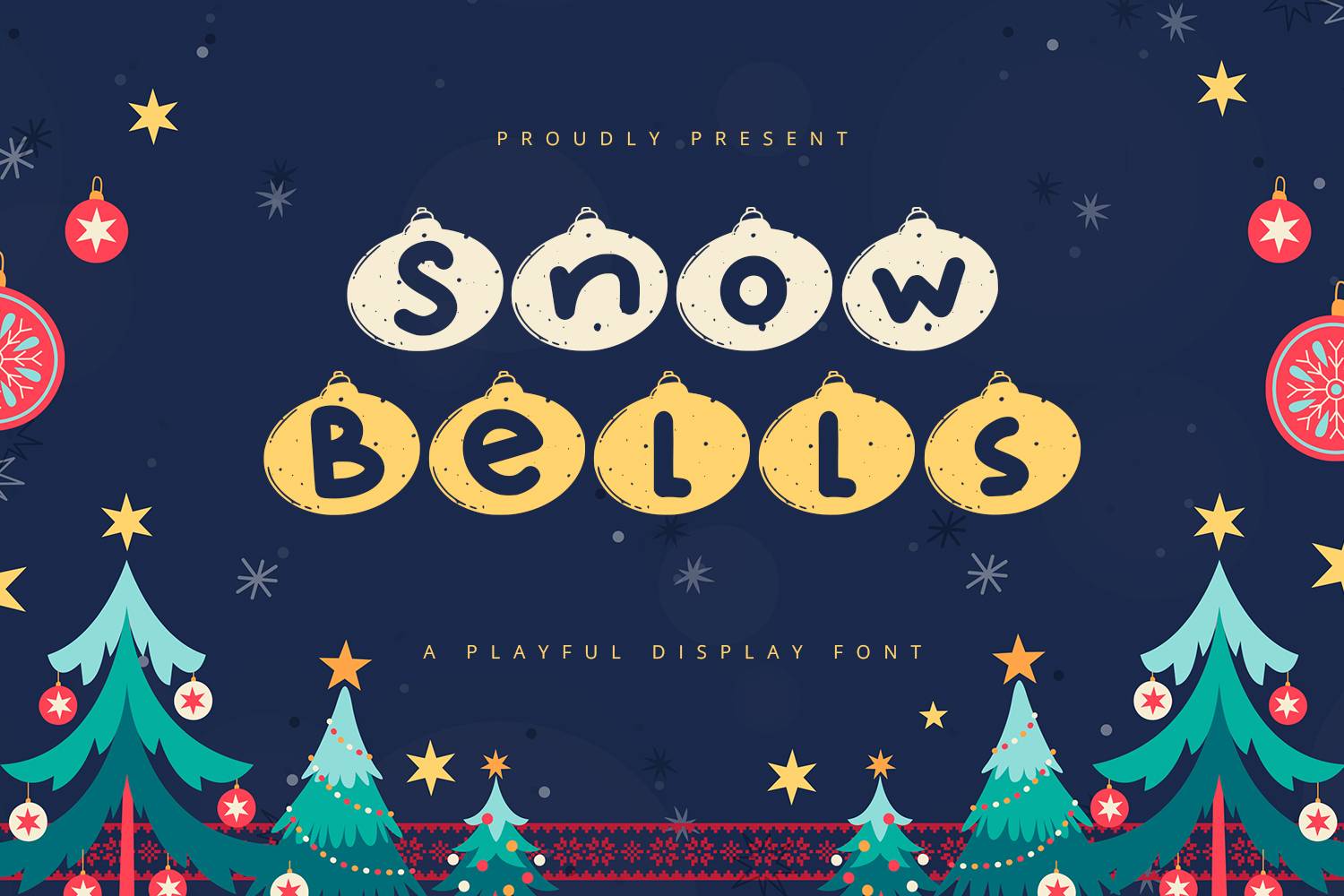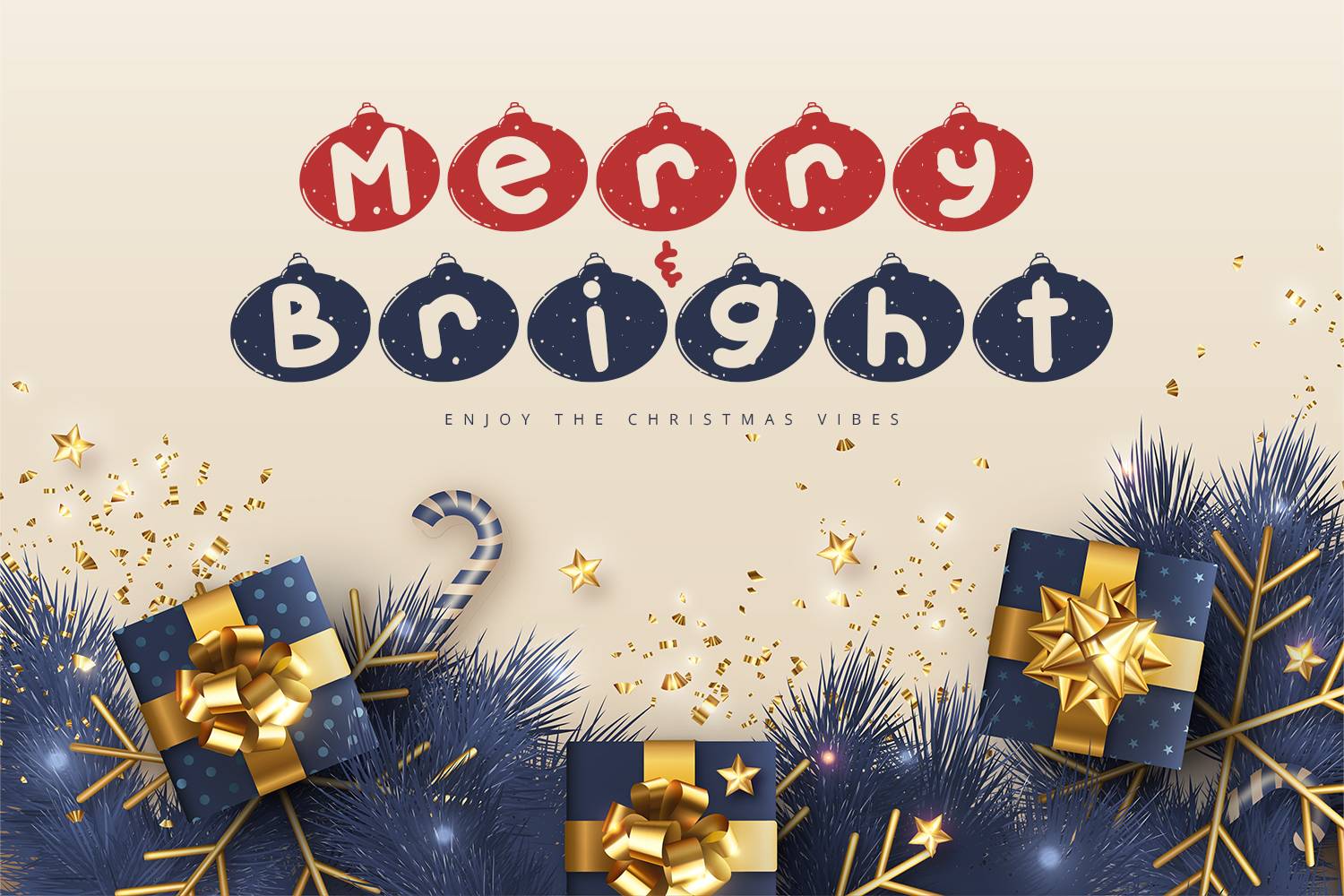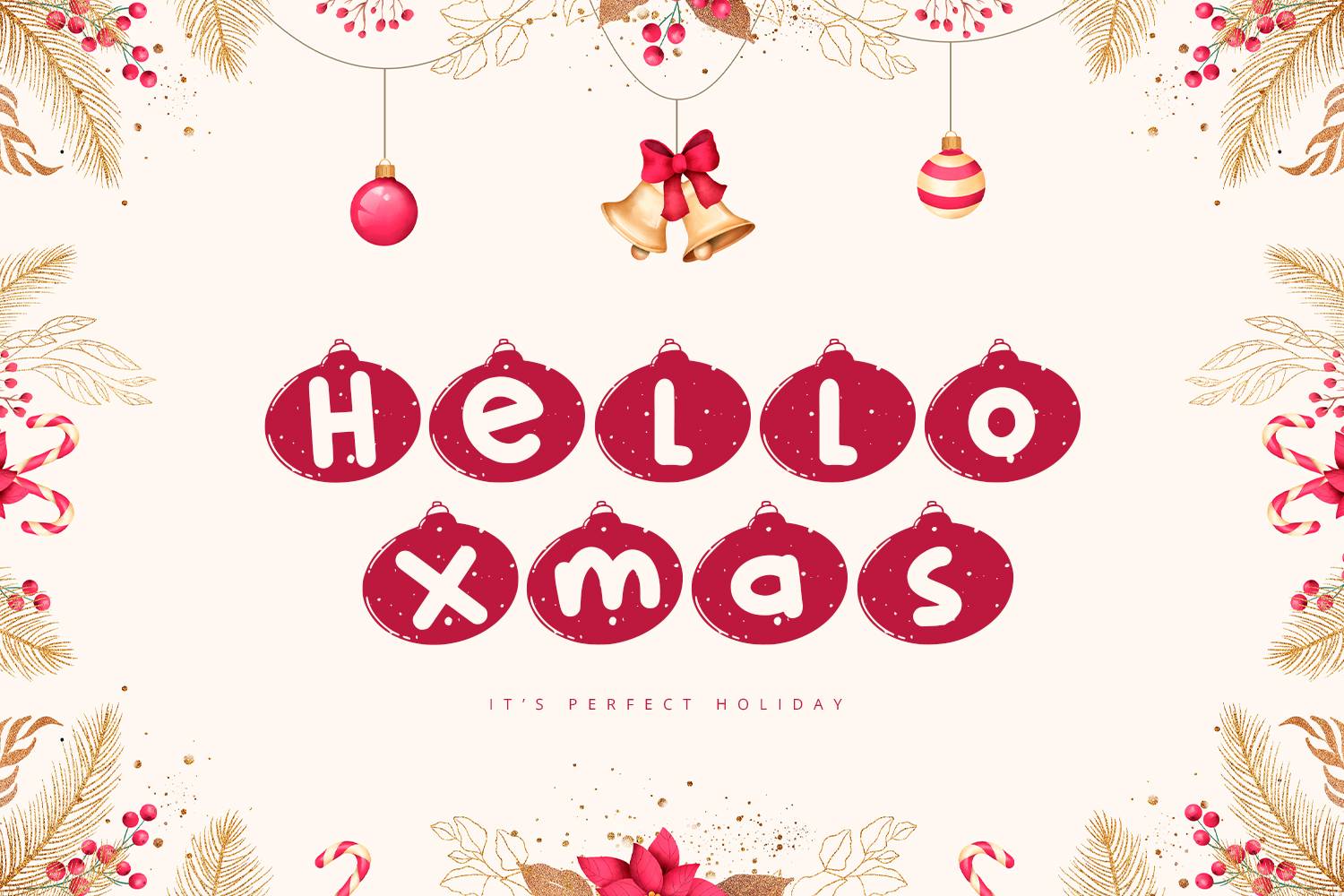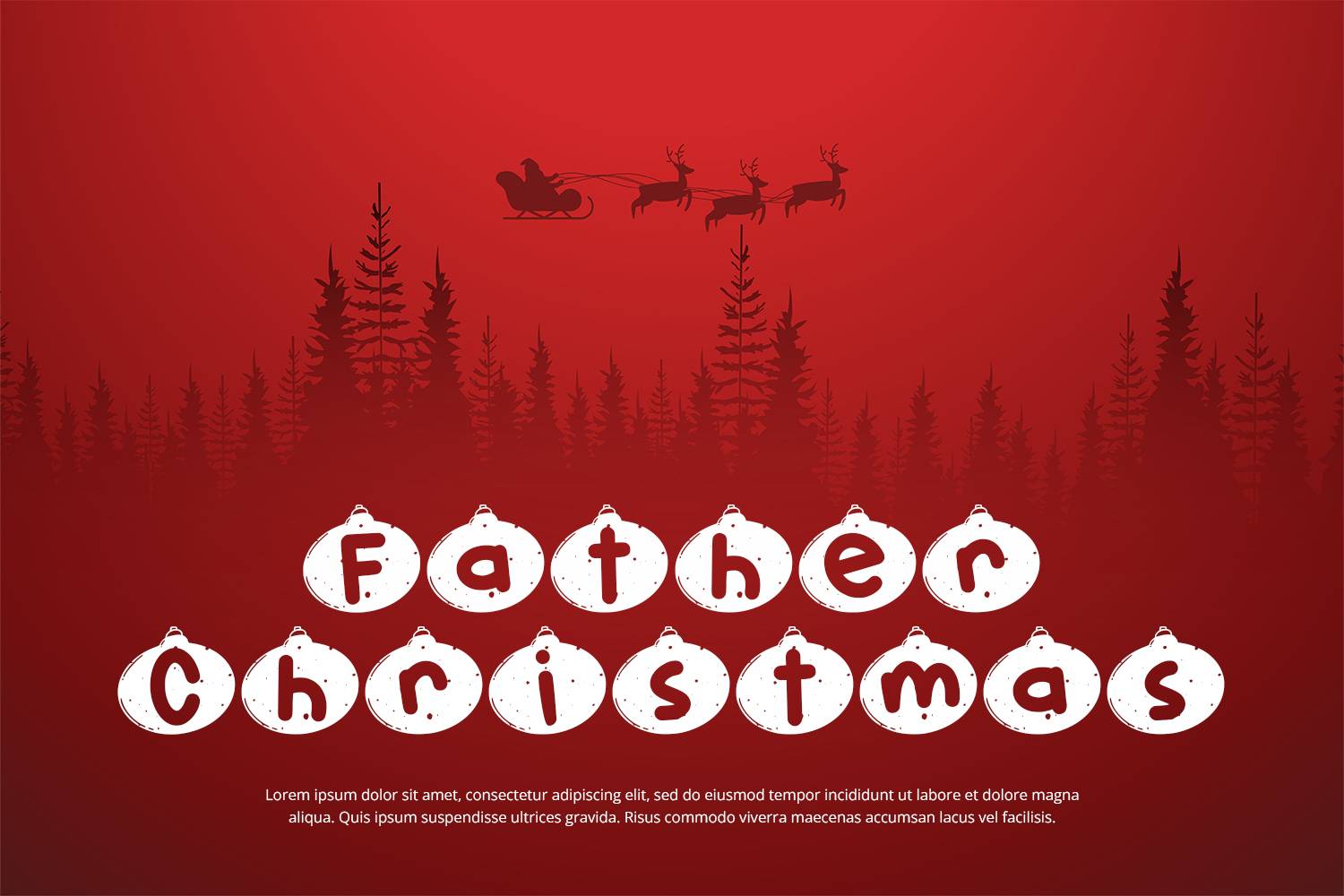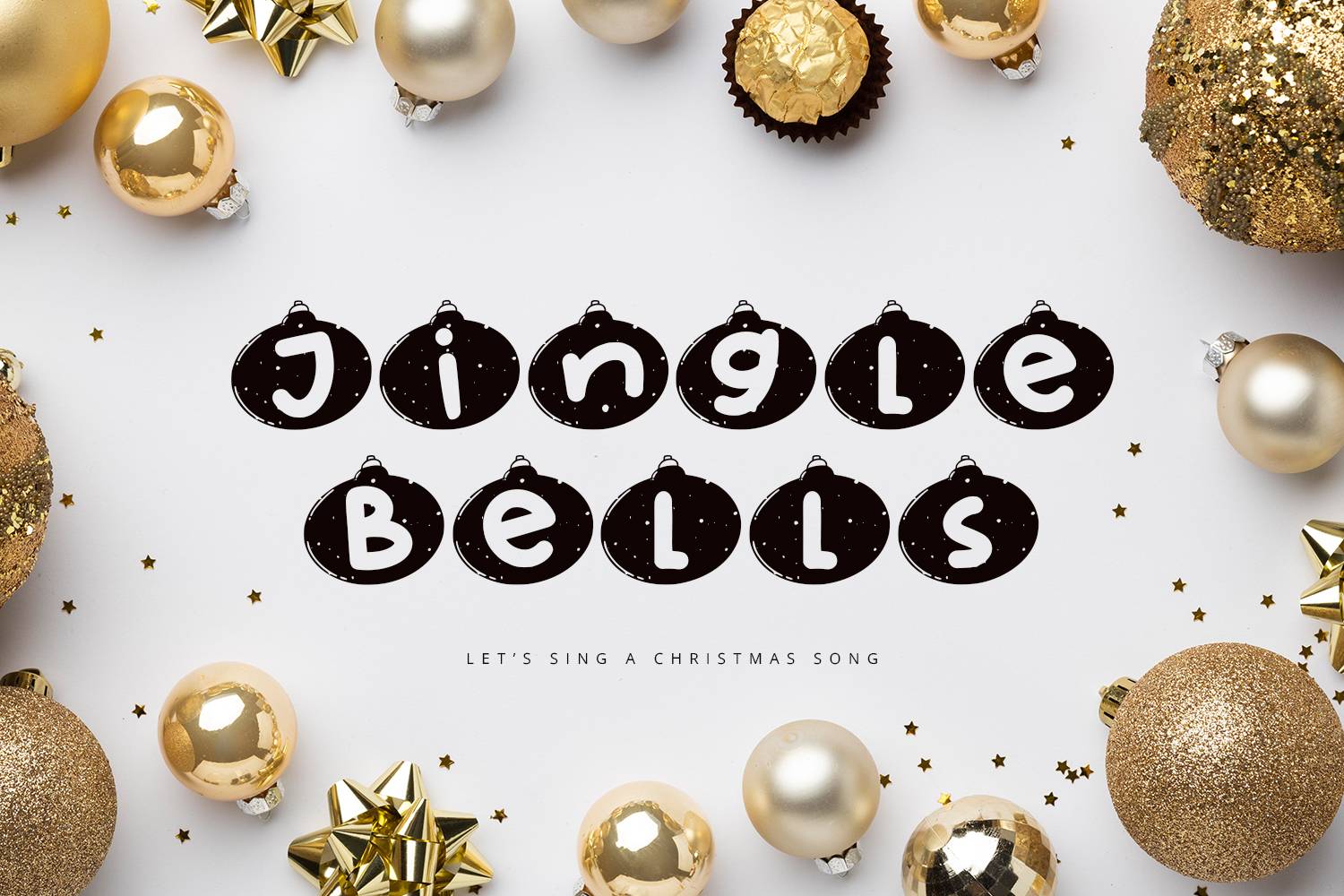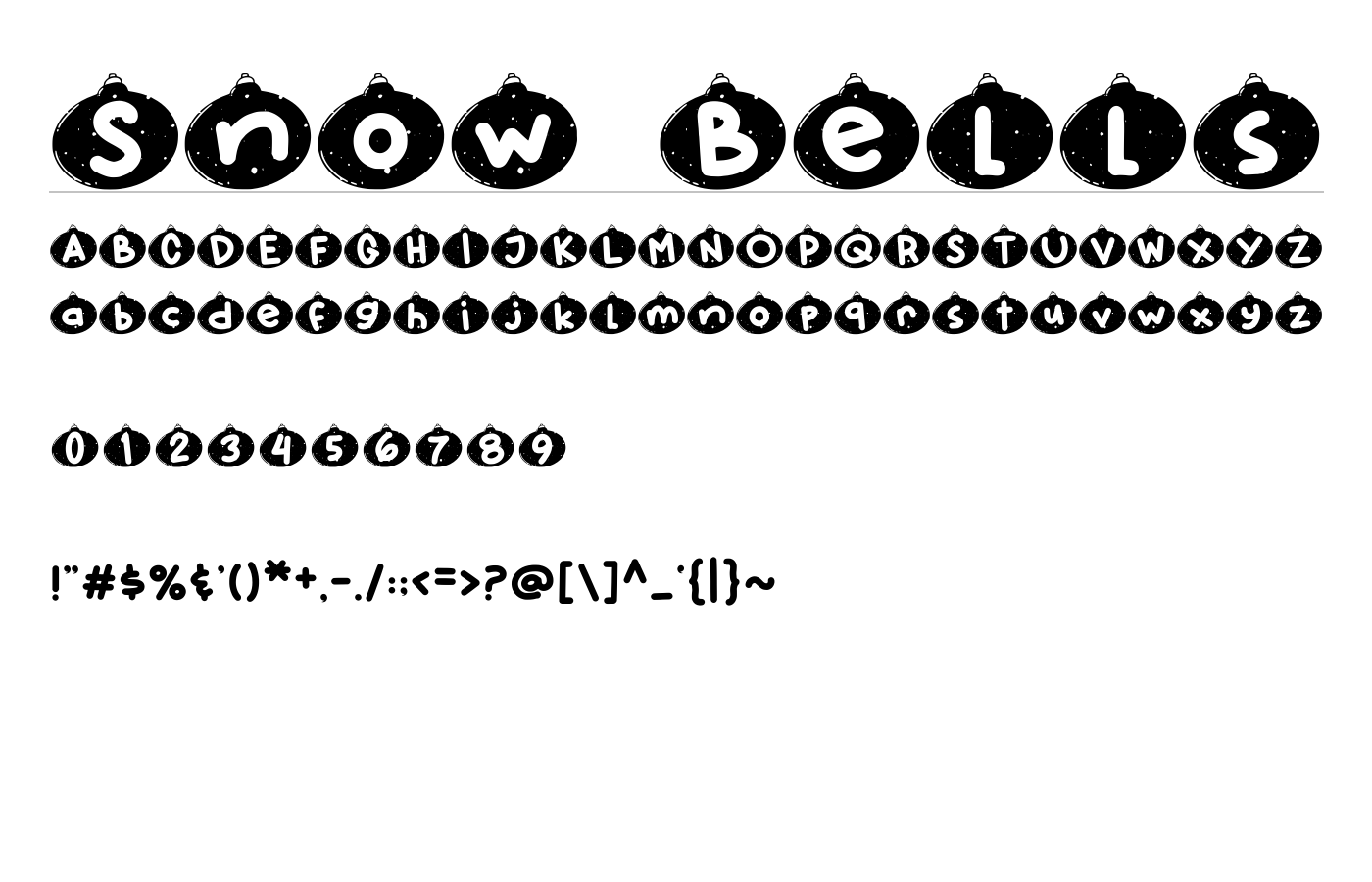
Snow Bells is a playful and bold display font featuring uppercase and lowercase letters enclosed in ornament-shaped circles, giving it a festive, holiday feel. With its chunky, rounded letterforms and whimsical style, this font works perfectly for seasonal invitations, greeting cards, and fun event branding where a cheerful and eye-catching design is desired. Its unique ornament motif makes it ideal for winter-themed projects seeking a joyful and decorative touch.
Snow Bells Font
About Snow Bells Font